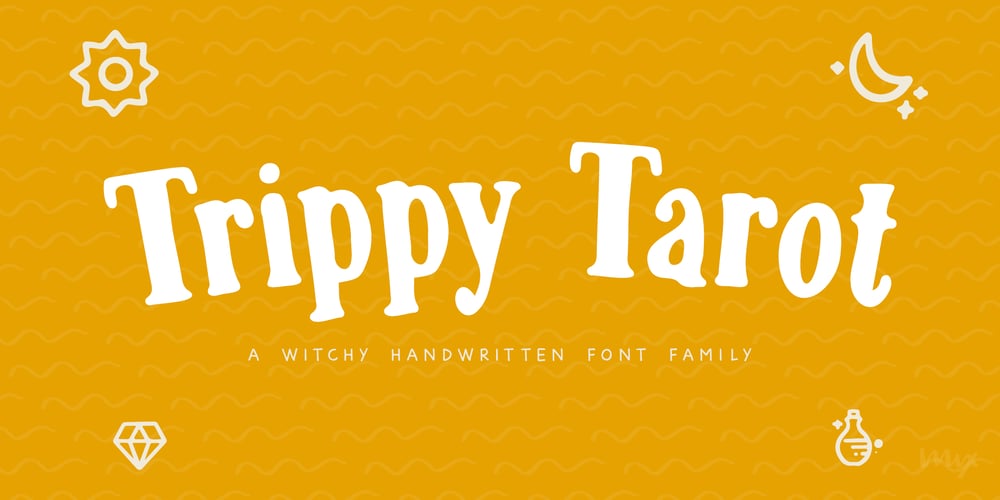
Trippy Tarot
Trippy Tarot font
Trippy Tarot Font Family was designed by Mikko Sumulong and published by Mix Fonts. Trippy Tarot contains 3 styles and family package options. MIX TRIPPY TAROT is a witchy handwritten serif, sans serif AND a dingbat set. The perfect balance of cute and creep to complete any of your crafty woowoo, astrology, zodiac, mystic, spellbook, or magic projects. This family of fonts come with an abundance of glyphs, alternates and ligatures. The dingbat set is a collection of 36 doodles that perfectly go with the regular or serif Trippy Tarot font (or any other font, for that matter)!WHAT YOU’LL GET: Mix Trippy Tarot Regular Mix Trippy Tarot Little Sans Mix Trippy Tarot Dingbats Mix Trippy Tarot Regular comes with the following glyphs: ABCDEFGHIJKLMNOPQRSTUVWXYZ abcdefghijklmnopqrstuvwxyz 0123456789 !@$#%^&*()`~♥❤•· ÷×+−±≈=≠≥≤[]:;’”,.|/?{}“”‘’-–—_… ©®™‹›«»°¹²³ªº¡¿₱¢€£¥½¼¾¶§№† ÁÀÂÄÃÅĂĀĄÆĆĈČÇÐĐÉÈÊËĖĒĘĜĤIÍÌÎÏĪĮĴŁŃÑŇ ÓÒÔÖÕŌŐØŒŔŘŚŜŠȘŤȚÚÙÛÜŮŰŬŪŲẂẀŴÝŶŸŹẐŽŻÞ áàâäãåăāąæćĉčçðđéèêëėēęĝĥıíìîïīįĵłńñň óòôöõōőøœŕřśŝšșťțúùûüůűŭūųẃẁŵýŷÿźẑžżþß Ligatures: ee ff fl ft ll mm nn ss tt Alternate: Q Mix Trippy Tarot Regular comes with the following glyphs: ABCDEFGHIJKLMNOPQRSTUVWXYZ abcdefghijklmnopqrstuvwxyz 0123456789 !@$#%^&*()`~♥❤•· ×+−=[]<>:;’”,.|/?{}“”‘’-–—_…©®™‹›«»°¹²³ªº¡¿₱¢€¥Þþß Fellow witches, enjoy!